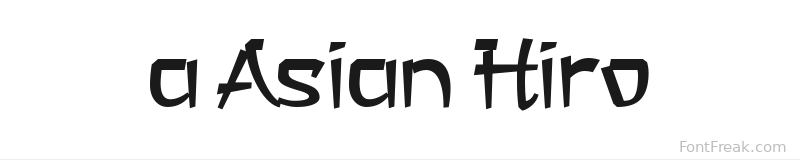
a Asian Hiro
The a Asian Hiro font, designed by Wahyu Eka Prasetya, exemplifies a unique blend of modern aesthetics and cultural inspiration, making it a striking choice for various creative projects. This display font features a bold, sans-serif style characterized by its unconventional letterforms and a captivating playfulness that draws the eye. The strokes exhibit moderate weight, contributing to a strong visual presence while maintaining a sense of fluidity. With minimal contrast and generous spacing, each character stands out, ensuring legibility even in larger formats.
Ideal for a range of applications, a Asian Hiro excels in contexts that require an engaging and memorable touch. It is particularly well-suited for vibrant restaurant menus, where its unique character can add flavor to the dining experience. Additionally, this font is perfect for eye-catching movie posters, helping to convey a sense of excitement and intrigue. Graphic designers may also find it beneficial for branding projects, particularly for businesses wanting to make a bold statement. Content creators can leverage its distinctive style in social media graphics and promotional materials, capturing attention in an increasingly visual landscape.
The target audience for this font includes graphic designers seeking to enhance their creative toolkit, small business owners looking for impactful branding solutions, and content creators aiming to elevate their visual storytelling. The a Asian Hiro font free download provides an accessible option for those looking to incorporate a distinctive style into their work.
What sets a Asian Hiro apart is its ability to merge cultural influences with contemporary design, making it a versatile choice for anyone wanting to infuse their projects with personality and flair. Its unique charm ensures that any text set in this font will leave a lasting impression.